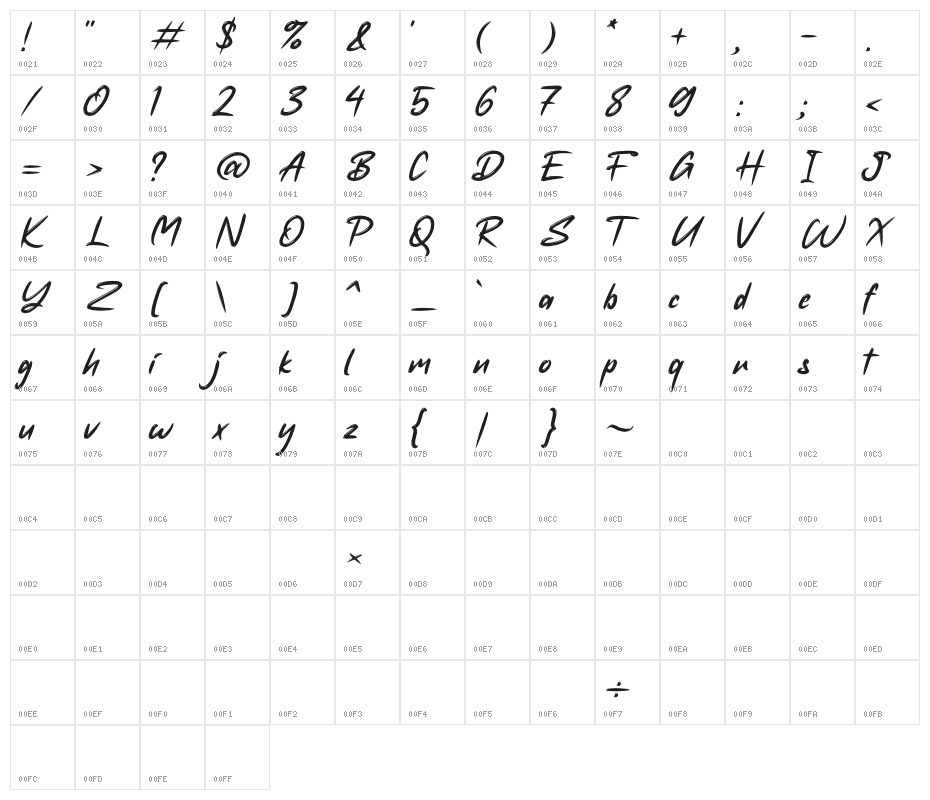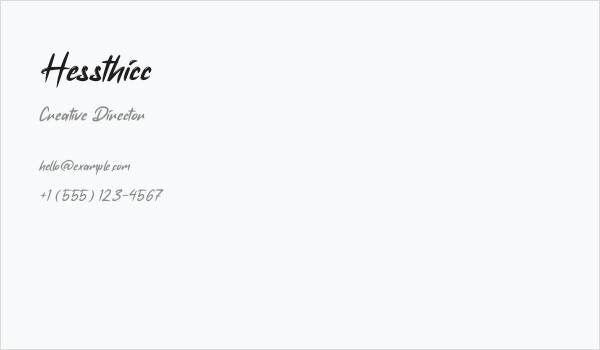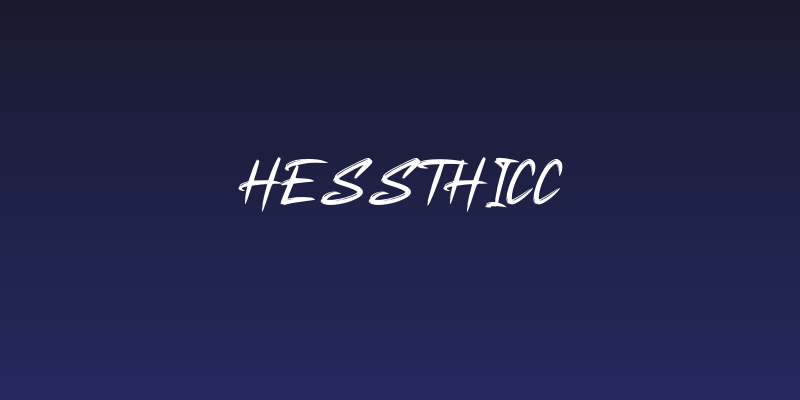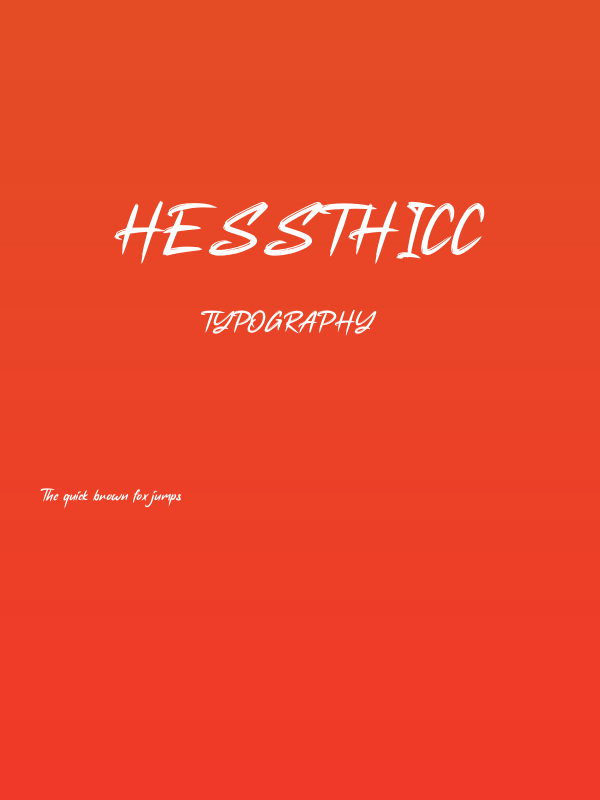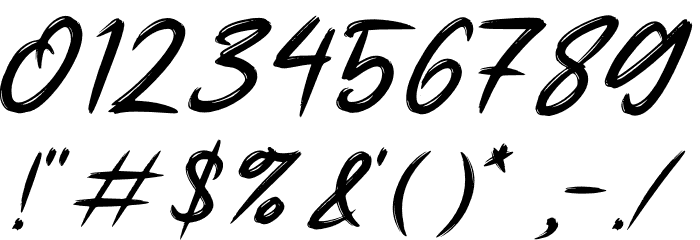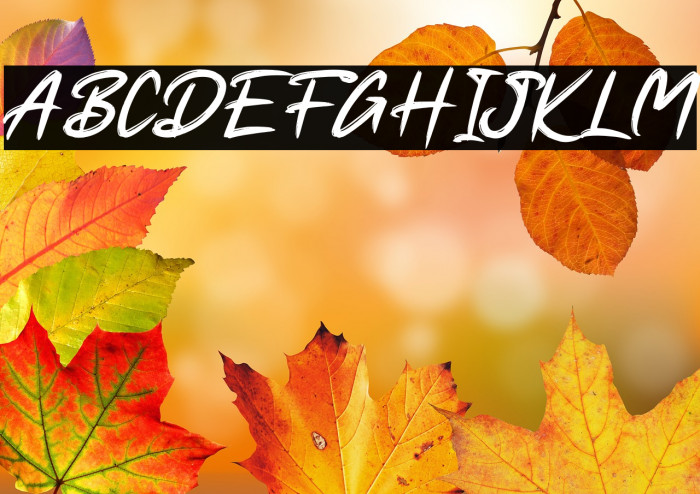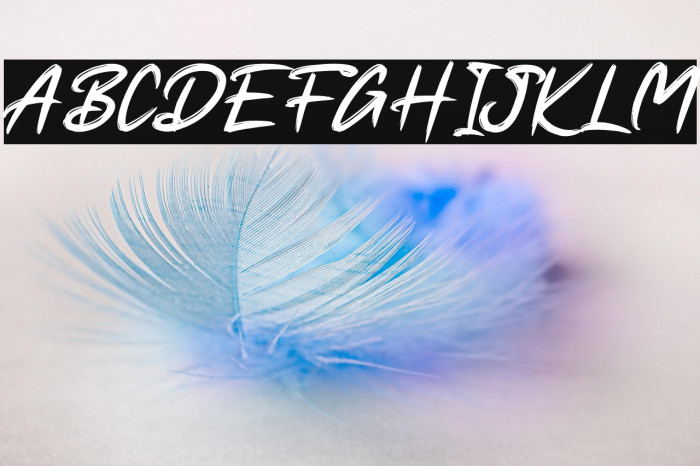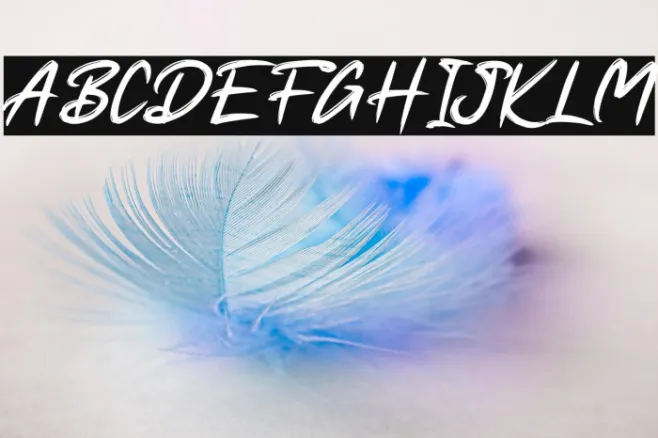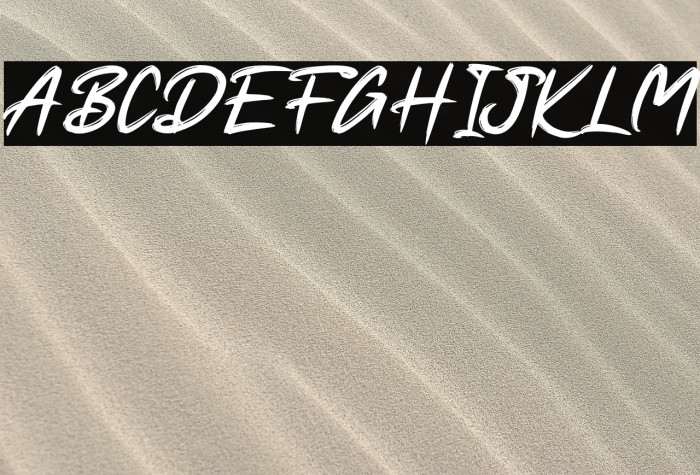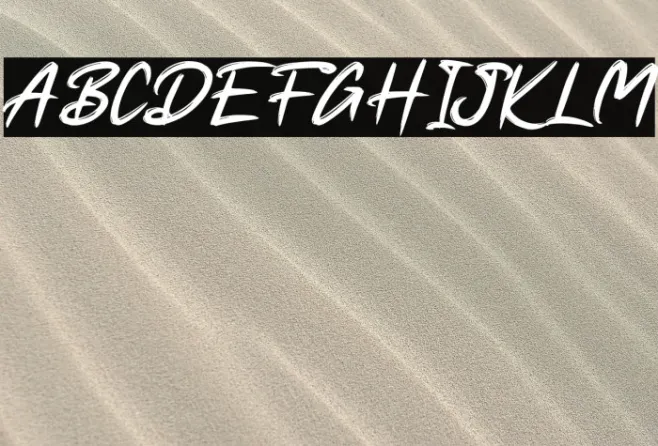
Hessthicc Font
Hessthicc Description
This font features a bold and expressive handwritten style, characterized by its dynamic and fluid strokes. The letters have a slightly slanted orientation, giving a sense of movement and energy. The uppercase and lowercase letters maintain a consistent style, with the uppercase being slightly more pronounced. The numbers and special characters follow the same energetic and bold design, ensuring a cohesive look across all characters. The overall appearance is both modern and artistic, making it suitable for creative and eye-catching designs.
| Proposed Projects | Ideal for branding, posters, social media graphics, and any project requiring a bold, artistic touch. |